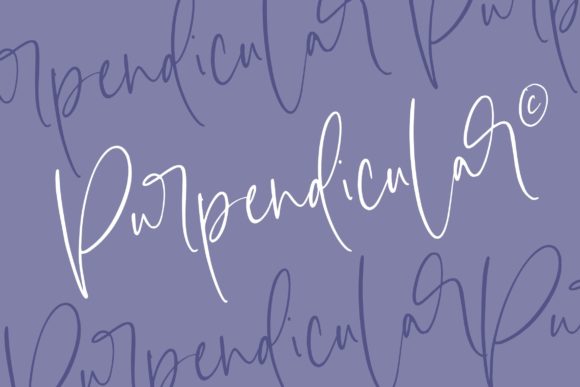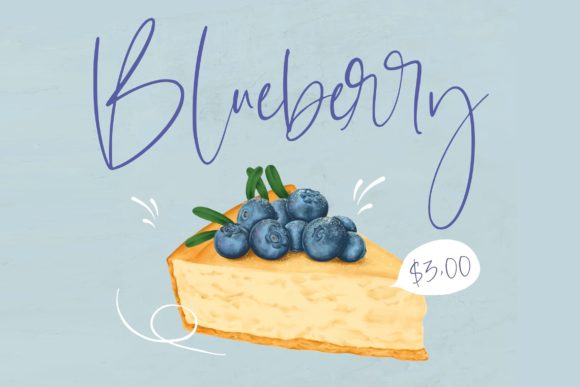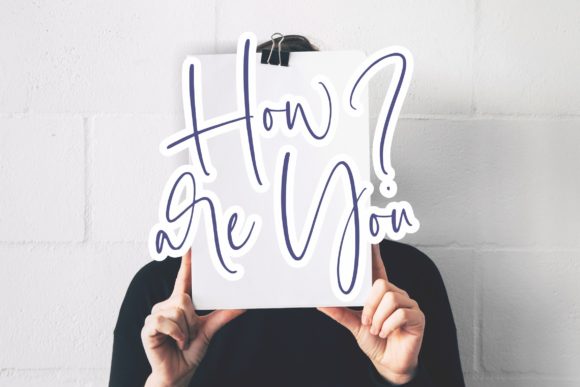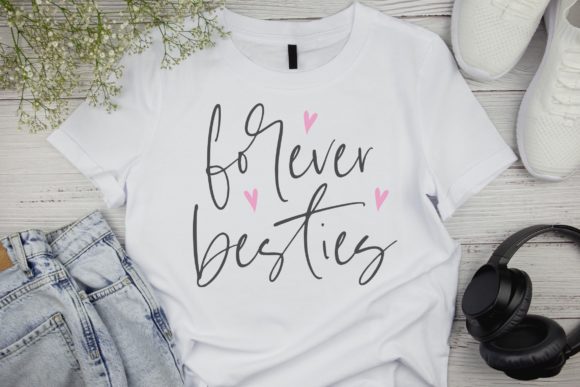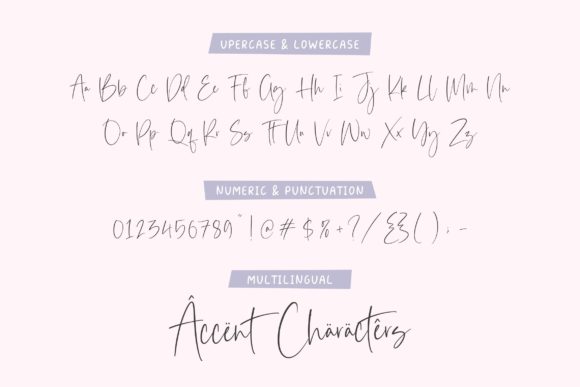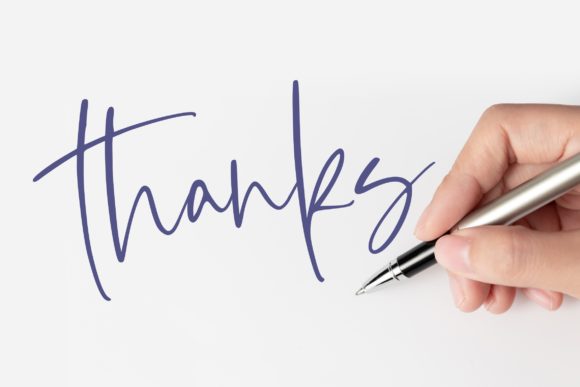
Smooth Batters Font
About Smooth Batters Font
“Smooth Batters” is a font that effortlessly embodies both charm and elegance, striking a perfect balance. Its visual appeal is nothing short of stunning, making it an impeccable choice for a wide spectrum of design applications. From the elegance of wedding invitations to the warmth of thank you cards, the power of quotes, the sentiment of greeting cards, the identity of logos, and the professionalism of business cards, this font seamlessly adapts to projects that demand a personalized touch.
Its versatility becomes evident as it gracefully aligns with a diverse range of design contexts. Whether you’re aiming to create a romantic atmosphere or convey a professional image, “Smooth Batters” adapts effortlessly to your creative vision.
Adding to its allure is the fact that “Smooth Batters” is PUA encoded. This feature grants you easy access to an extensive collection of glyphs and swashes, offering limitless possibilities for customization. This inclusion enhances the font’s versatility and empowers you to infuse your designs with intricate details.
In essence, “Smooth Batters” harmoniously combines charm and elegance, rendering it an invaluable asset in your design toolkit. Its adaptability, coupled with the convenience of PUA encoding, transforms it into an indispensable tool for designers striving to create visuals that evoke emotions and leave a lasting impression. With “Smooth Batters,” your projects don’t merely communicate; they radiate charm and elegance, resonating deeply with viewers and making a memorable impact.